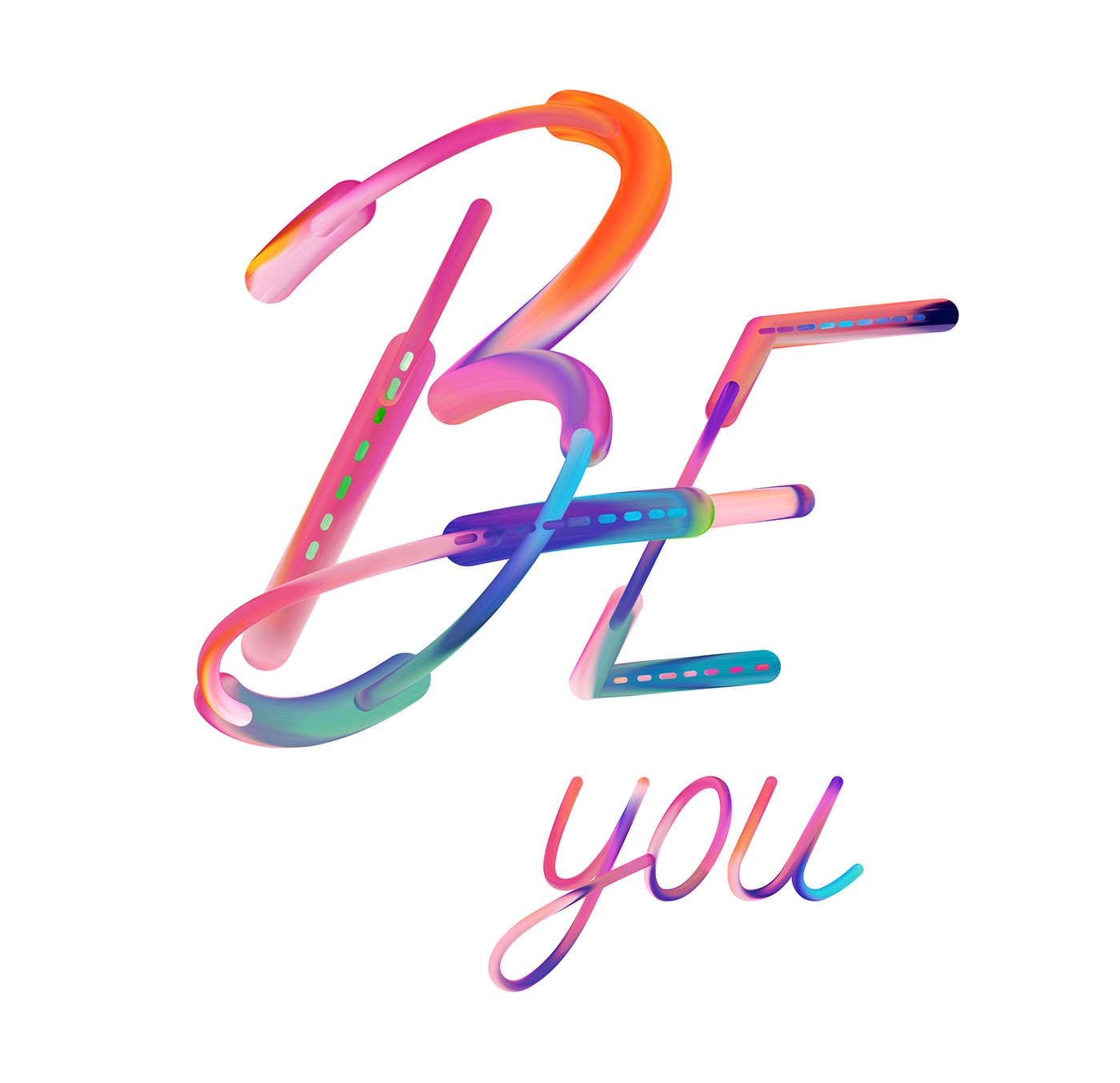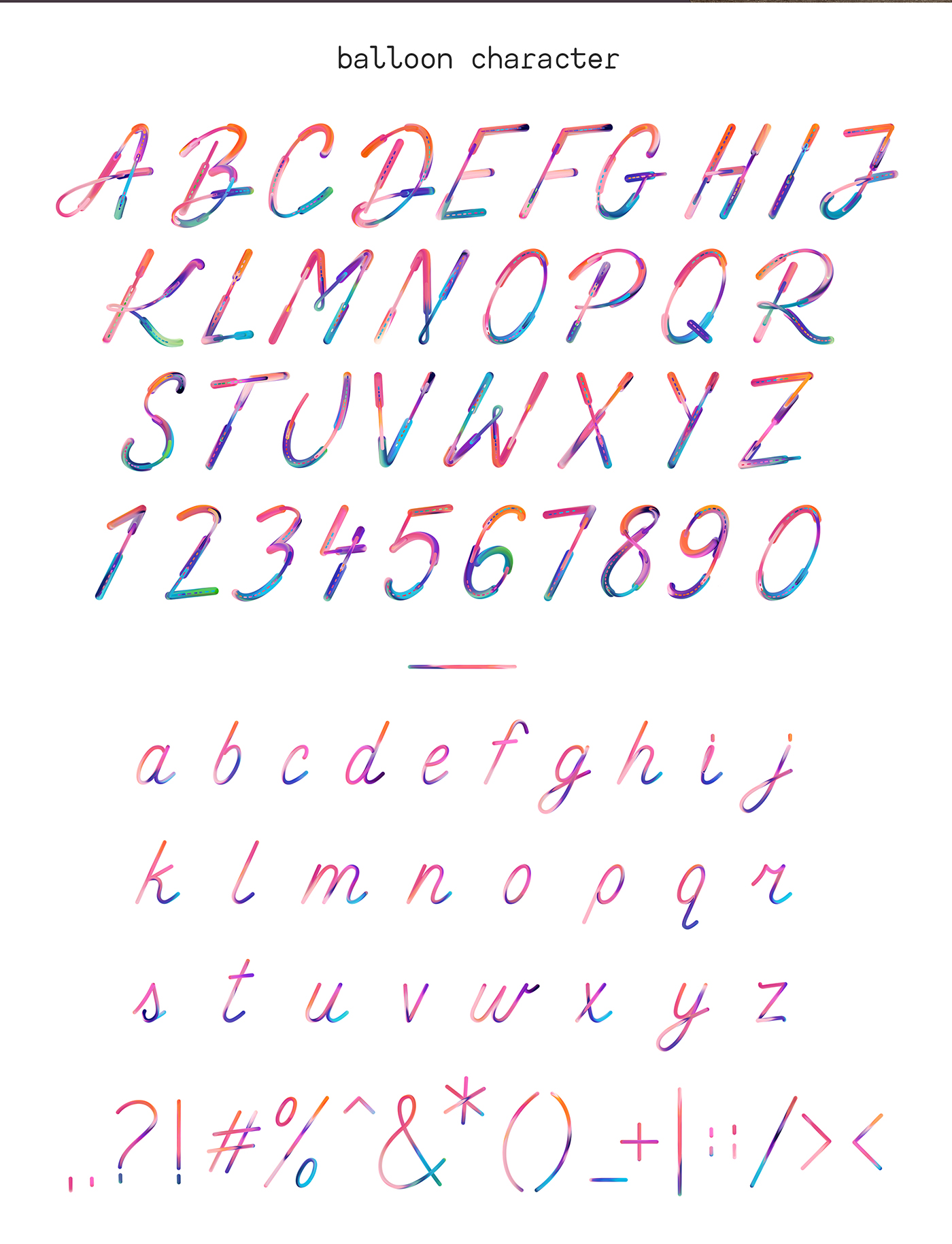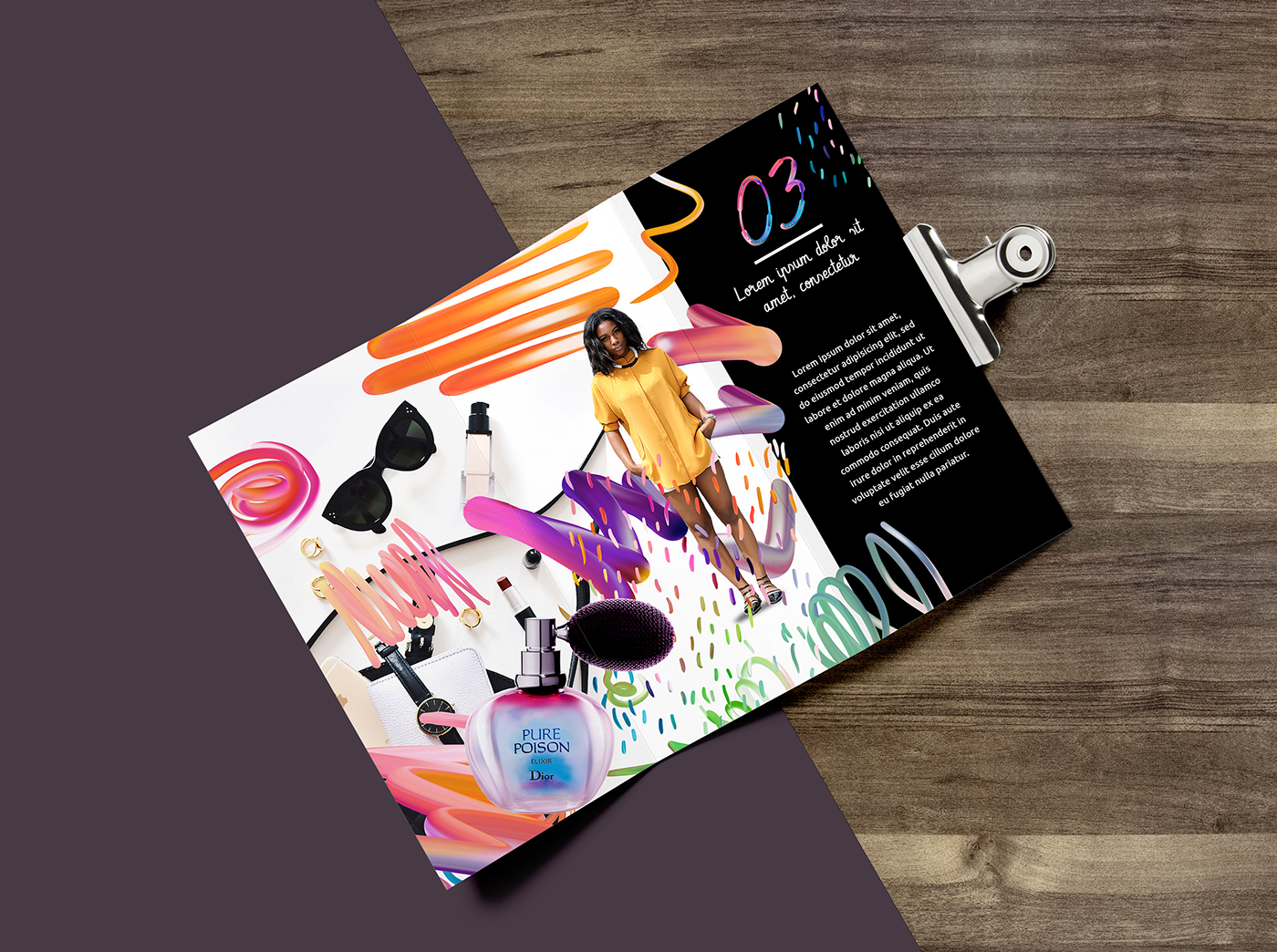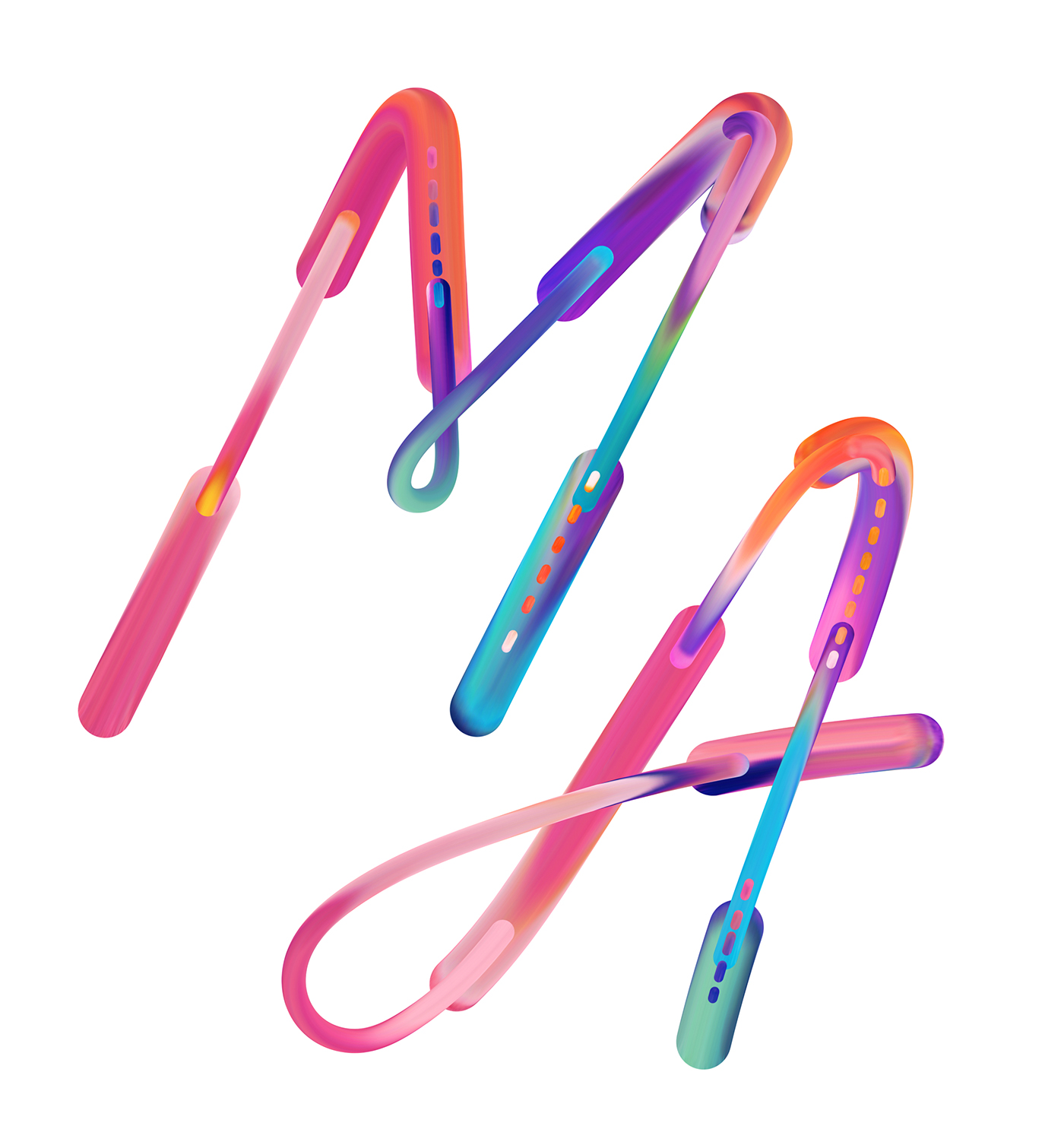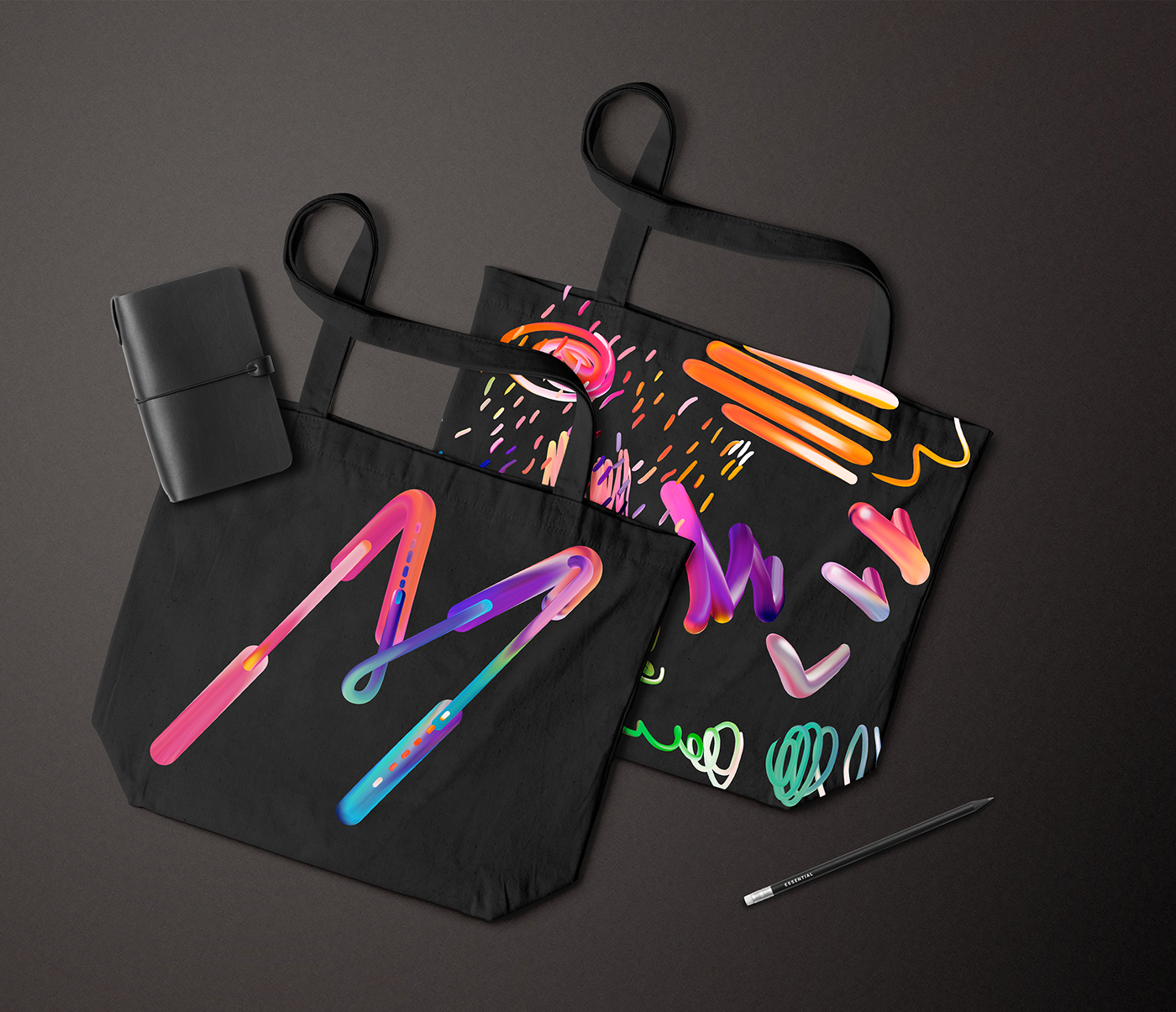
Need a fun, electric font to add a little colour to your latest project? Then you’d do well to check out the Balloon Font. Designed by Aga Magdziak from Poland, this beautiful typeface is really a great choice for putting together all sorts of fashion projects. The files are delivered as PSD and each letter is on a separate layer as otf file.